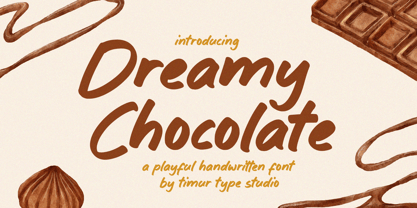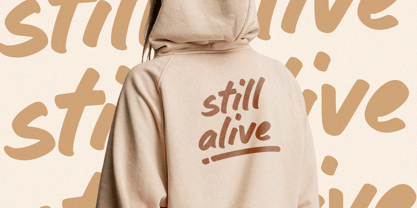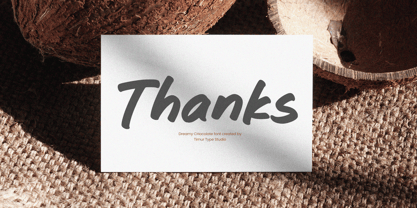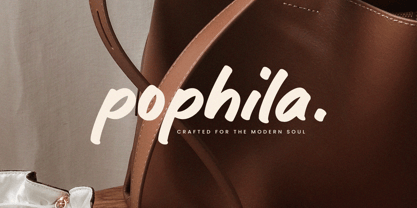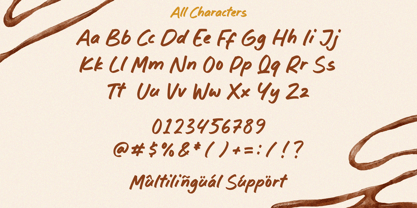
Dreamy Chocolate
by Timurtype
The Dreamy Chocolate Font Family was designed by Wara Sigit Tri Pamungkas and published by Timurtype. Dreamy Chocolate contains 1 styles.
Introduced by Timurtype Studio!
Dreamy Chocolate is a Playful Handwritten Font
This font is a playful handwritten display font with a sweet and whimsical charm. Its smooth, flowing strokes and slightly bouncy letterforms create a fun, friendly feel—perfect for branding, packaging, invitations, and creative projects that need a touch of warmth.
Dreamy Chocolate Font also supports multilingualism